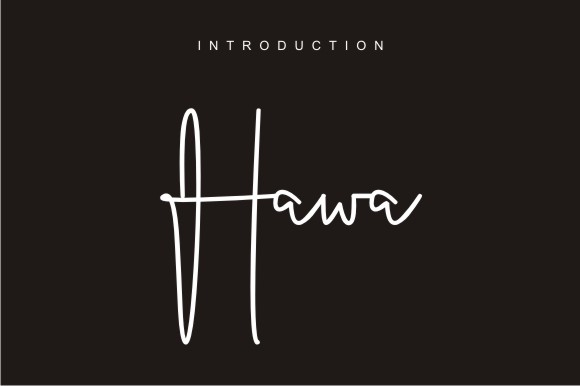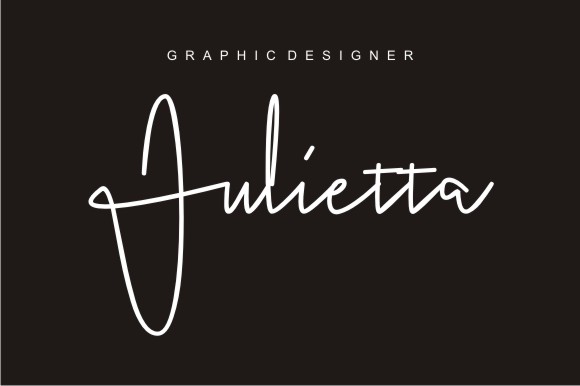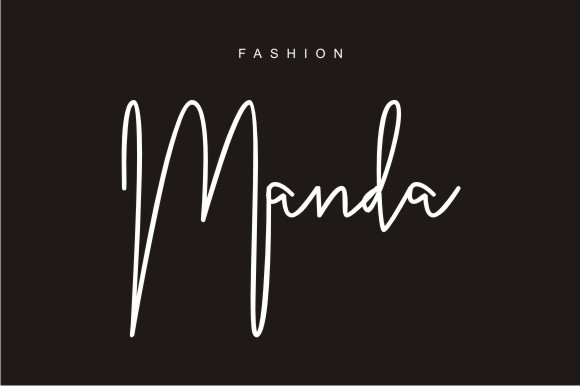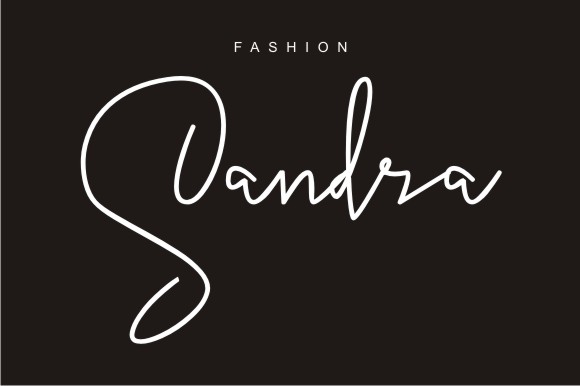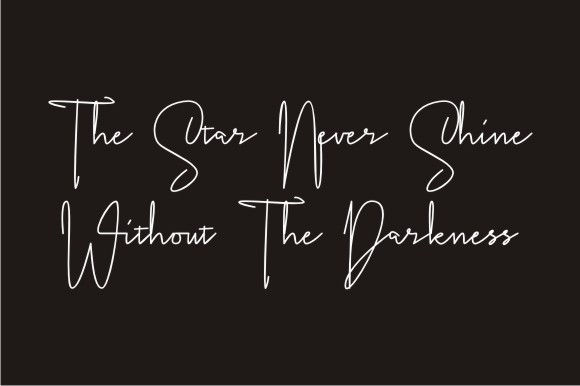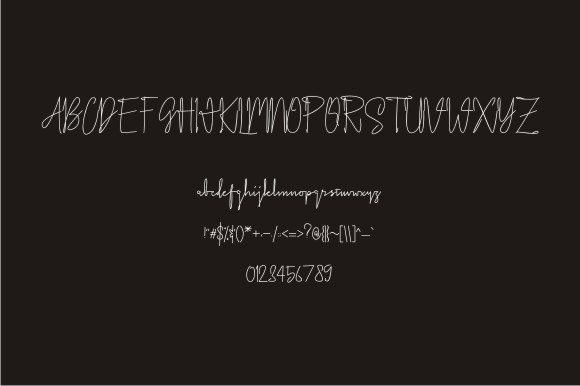
Hawa Font
About Hawa Font
Hawa is a gorgeous signature typeface with an extended baseline for stunning and editorial potential. This thin, monoline font is gorgeous and ready to be used for all your display needs.